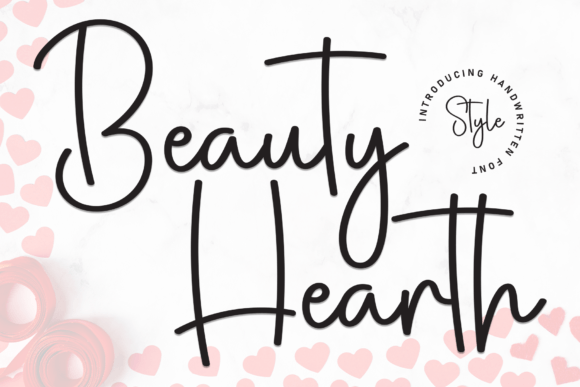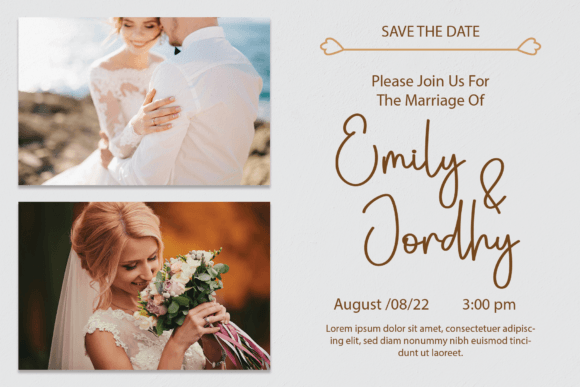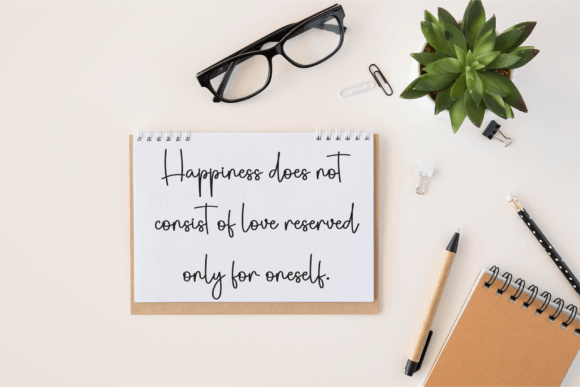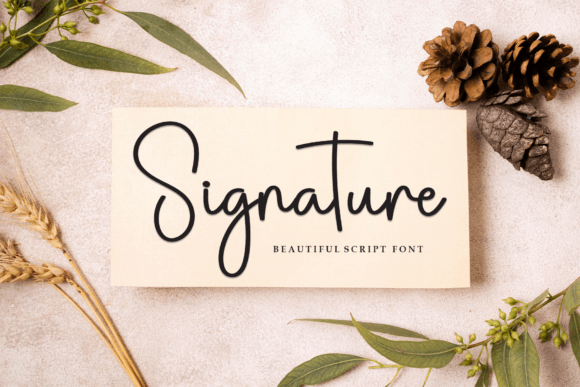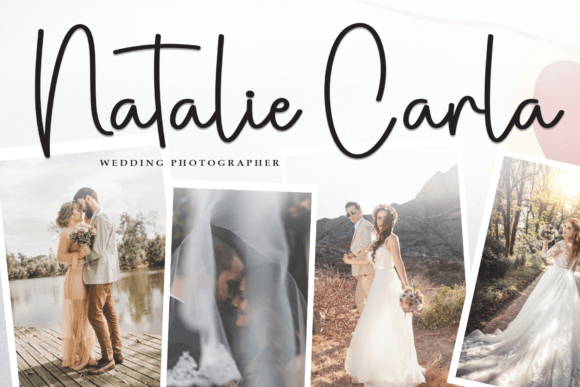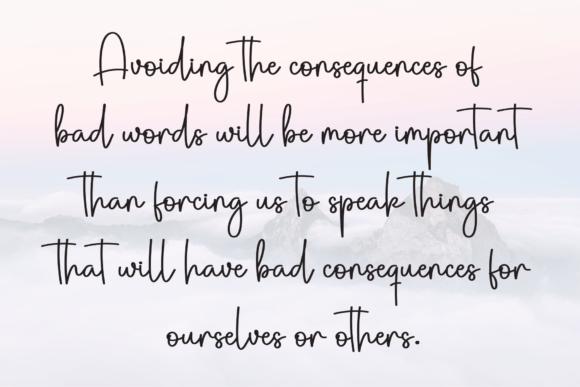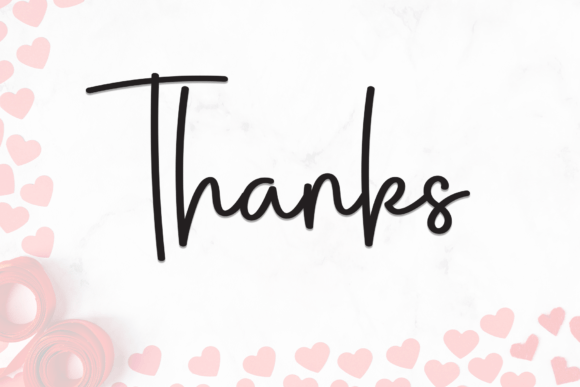
Unlocking the Magic of Handwritten Design
Have you ever been stuck in a creative rut, struggling to find the perfect font to bring your design to life? I know I have. It was during one of those moments, while brainstorming ideas for a client’s logo, that I stumbled upon the Beauty Hearth Font. This lovely and timeless handwritten font was the spark that ignited a wave of creativity, and I knew I had to share it with the world.
As a designer, I can attest to the value of having the right tools at your disposal. The Beauty Hearth Font is more than just a font – it’s a key to unlocking unique and eye-catching designs that set your work apart. With its beautiful, handwritten touch, this font is perfect for creating memorable logos, branding, and quotes that speak to your audience on a deeper level.
Beauty Hearth Font Key Features
- Unique Characteristics: The font features a unique blend of traditional and modern elements, with intricate details and subtle flourishes that add a touch of elegance.
Beauty Hearth Font Review
Overall, I think the Beauty Hearth Font is a great addition to any designer’s toolkit. ✨ The font’s soft, cursive script makes it perfect for adding a touch of warmth and elegance to any project. ✨ I particularly like the way it handles uppercase letters, which look particularly beautiful with the subtle flourishes. ✨
Here are some specific strengths of the font:
- Highly customizable: Beauty Hearth Font comes with a wide range of styles and weights, making it easy to match your project’s tone and aesthetic.
- Perfect for headings: The font’s bold and elegant script makes it ideal for headings and titles.
- Works well with most text: The font’s smooth transitions between letters make it easy to read and enjoyable to use.
That being said, there are a few limitations to keep in mind:
- Not ideal for body text: While the font works well for headings and titles, it may be too ornate for large blocks of body text.
- May not be legible at small sizes: The font’s intricate flourishes can make it difficult to read at very small font sizes.
- Requires careful kerning: The font’s cursive script requires careful kerning to ensure that the letters fit together smoothly.
Overall, I’d say that the Beauty Hearth Font is a solid choice for designers looking to add some elegance and sophistication to their projects. With a little care and attention, it can be a real showstopper. ⚠️ Just be sure to use it judiciously and with a clear understanding of its limitations. ⚠️
Getting the Most Out of the Beauty Hearth Font
To get the most out of the Beauty Hearth font, try the following:
- Use the font in combination with other elegant fonts for a sophisticated look.
- Use the font in headings and subheadings to create a clear hierarchy of information.